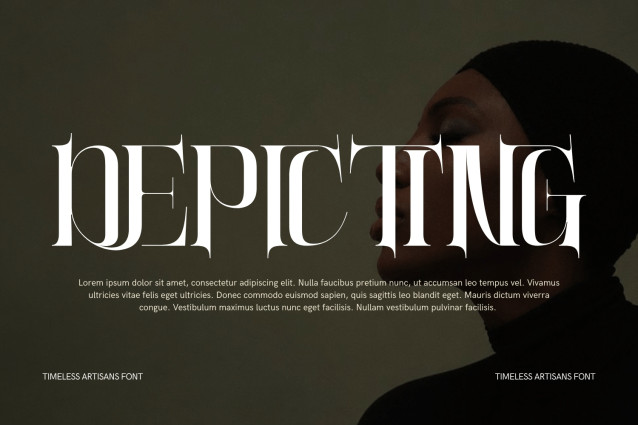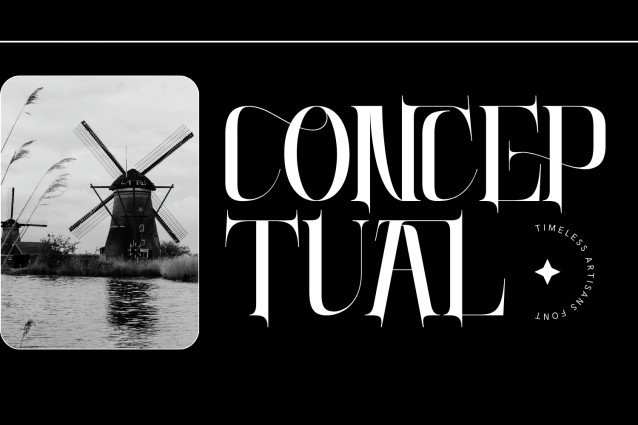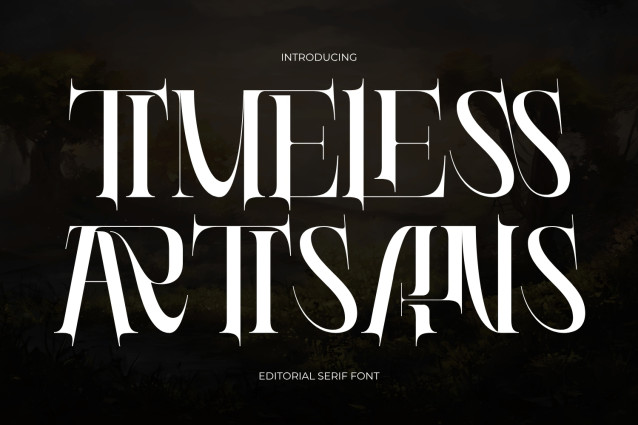
TIMELESS ARTISANS – LUXURY SERIF FONT – Modern Sharp Luxury Serif & Fantasy Editorial Display Font is a spellbinding, high-fashion display serif typeface crafted at the intersection of dark fantasy elegance, sharp Art Nouveau aesthetics, and bespoke artisan craftsmanship. Characterized by its tall condensed silhouette, extreme stem contrast, and razor-sharp thorn-like terminals, this font brings a dramatic, magical presence to modern editorial typography.
Featuring intricate interlocking ligatures and fluid nested glyph structures, TIMELESS ARTISANS effortlessly turns standard display headlines into custom, handcrafted logotypes. Its unique blend of sharp medieval-inspired flourishes and sleek haute-couture geometry makes it the ultimate typographic choice for luxury branding, artisan perfume and spirits packaging, fantasy book covers, high-end editorial layouts, and bespoke wedding stationery.